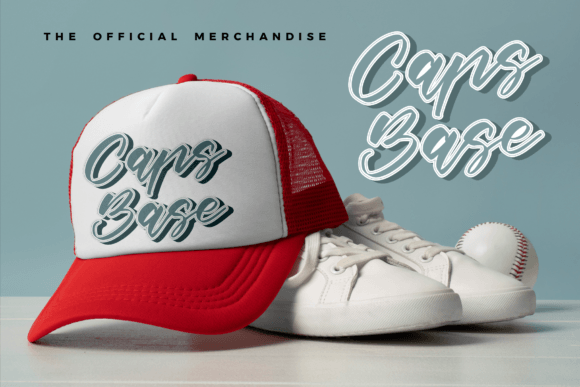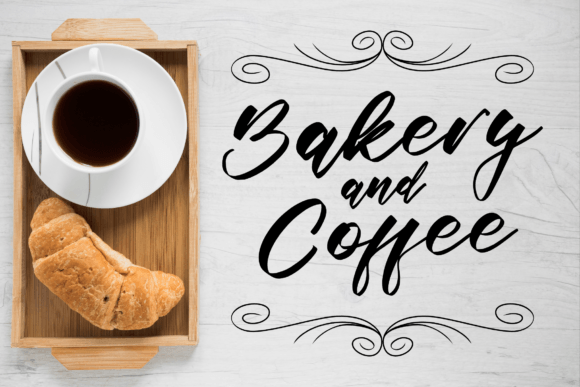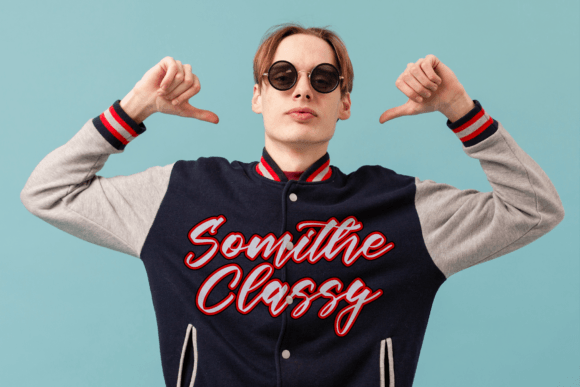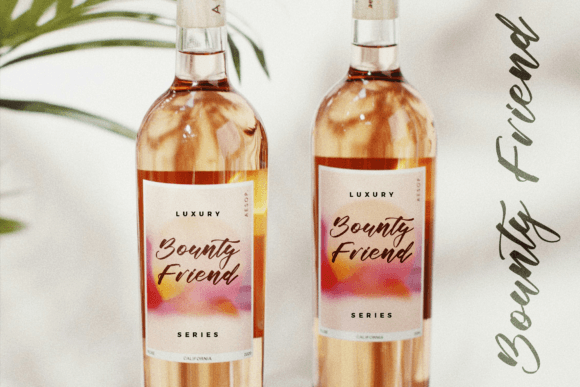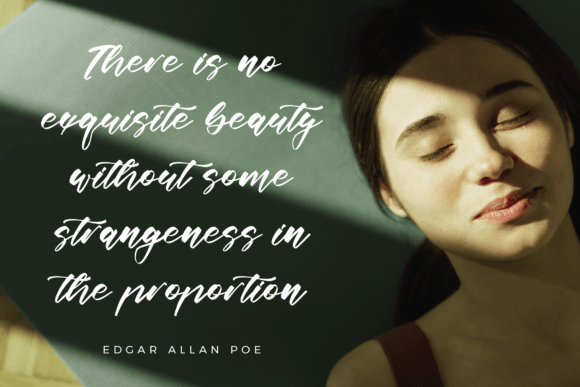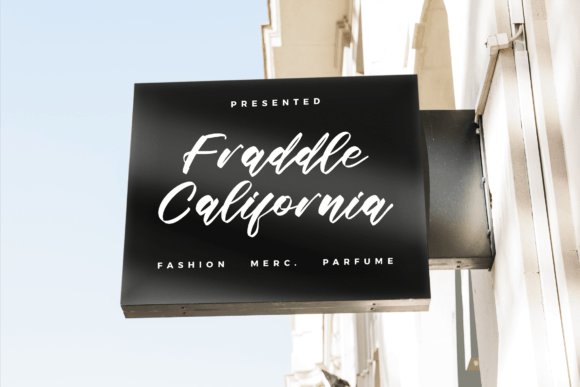
The Elusive Perfect Font: My Encounter with Blackina Grimotty
Ah, the quest for the perfect font. We’ve all been there – scrolling through endless font libraries, trying to find that one elusive typeface that brings our design project to life. I recall working on a branding project for a boutique coffee shop, determined to create a logo that exuded warmth and sophistication. The client wanted a script font that felt modern, yet elegant. After hours of searching, I stumbled upon Blackina Grimotty, a stunning modern script font from Letterfabric Studio. It was love at first sight! 💕
An Honest Review of Blackina Grimotty
- ✨ Elegant and modern script style that’s perfect for high-end branding projects
- ✅ Highly versatile – suitable for logos, product packaging, mugs, posters, and more
- 💫 Beautifully crafted with attention to detail, making it a joy to work with
- 🌈 Extensive character set, including support for multiple languages
While Blackina Grimotty is an exceptional font, there are a few minor quirks to be aware of:
- 🤔 Some users may find the font a tad too ornate for very small text sizes or body text
- ⚠️ Limited availability of condensed or italic styles, which may limit its use in certain projects
The Story Behind Blackina Grimotty
Blackina Grimotty was designed by Letterfabric Studio, a team of passionate designers dedicated to creating beautiful and functional fonts. The font was inspired by the elegance and sophistication of modern calligraphy, with a focus on creating a versatile typeface that could be used in a variety of design projects. The design team spent countless hours perfecting the font, ensuring that every detail, from the letterforms to the OpenType features, was meticulously crafted to create a truly exceptional font.
Q: Can I use Blackina Grimotty for my branding project?
A: Absolutely! Blackina Grimotty is perfect for branding projects that require a modern and elegant script font. Its versatility and range of OpenType features make it an excellent choice for logos, business cards, and more.
Q: Is Blackina Grimotty suitable for body text?
A: While Blackina Grimotty is an exceptional font, it may not be the best choice for body text due to its ornate and elegant style. However, it’s perfect for headlines, titles, and other display text.